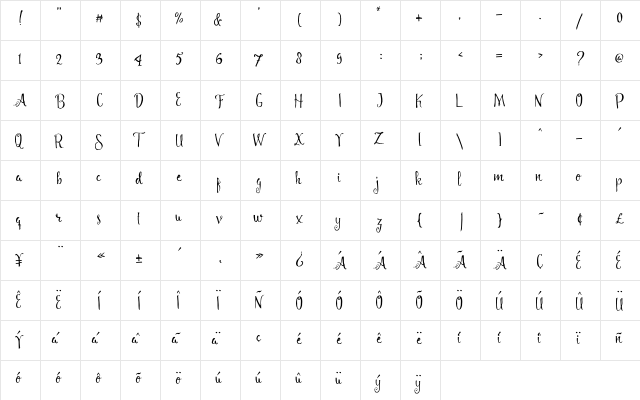
Angelia Script Free Demo Regular
Design Context for Angelia Script Free Demo Typeface
Angelia Script Free Demo brings a calligraphic fluidity to the page — its connecting strokes and expressive curves give it an unmistakably human quality.
Font Pairing: Combine Angelia Script Free Demo with a simple geometric sans for maximum contrast — the tension between flowing curves and clean structure is a classic typographic pairing.
Pro Tip: Use Angelia Script Free Demo for short runs of text — names, titles, or taglines. Extended body copy in script faces tires the eye quickly.